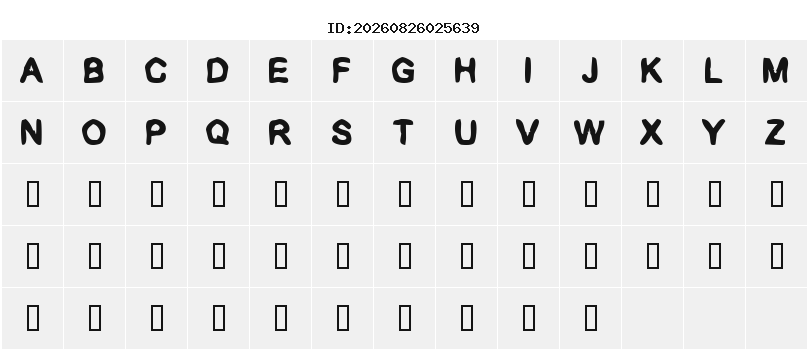
Xomic Preview
• Font Name: Xomic
• Font ID: Xomic
• Full Font Name: Xomic
• Version: Upper Case v1.0
• PostScript Name: Xomic
• Character Count: 27
About Xomic.ttf
Xomic.ttf is a modern, elegant sans-serif font designed for ultimate readability and visual harmony. Perfect for branding, headlines, web design, and print materials.